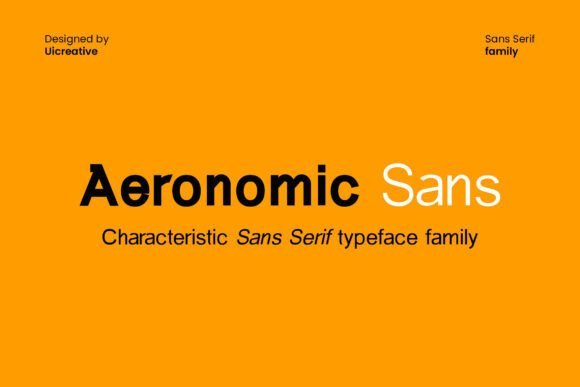
The Perfect Blend of Style and Sophistication: Introducing Aeronomic Font
As a designer, there’s nothing quite like the thrill of finding that perfect font to elevate your project from good to great. For me, it was the moment I stumbled upon the Aeronomic Sans Serif Family Font – a modern display font that exudes elegance and sophistication.
With its beautiful, classy, and stylish feel, the Aeronomic Font is ideally suited for a wide range of projects, from signature and stationery to logo design and magazine covers. Its versatility and refined aesthetic make it a valuable asset for designers looking to add a touch of sophistication to their work.
Whether you’re working on a high-end fashion brand or a romantic wedding invitation, the Aeronomic Font is sure to impress with its perfect balance of masculine and feminine qualities.
Aeronomic Font Key Features
- Character Set: The font includes a comprehensive set of characters, including Latin, Cyrillic, and Greek alphabets, making it suitable for multilingual designs.
- Unique Characteristics: Aeronomic Font features a clean, modern design with subtle rounded edges, giving it a friendly and approachable feel.
- Font Style Variations: Aeronomic Font comes in three styles: Regular, Italic, and Bold, providing designers with flexibility to create visually appealing typography.
Aeronomic Font Review
At first glance, the Aeronomic Font seems like a promising addition to any designer’s toolkit. Here are the things that caught my attention: ✨
- Unique and modern aesthetic: Aeronomic Font boasts a distinctive, high-tech look that’s perfect for futuristic or sci-fi projects.
- Wide range of weights: With multiple weights available, you can easily adjust the font’s appearance to suit your design needs.
- High legibility: The font’s clean lines and geometric shapes make it easy to read, even at small font sizes.
However, I did encounter a few limitations: ⚠️
- Limited language support: Aeronomic Font may not support as many languages as some other fonts, which could be a problem for projects with diverse audiences.
- Not suitable for body text: While Aeronomic Font is great for headlines and titles, it might be too ornate for large blocks of body text.
- May not work well in small sizes: The font’s unique design can make it difficult to read at very small font sizes.
Overall, I think Aeronomic Font is a solid choice for designers who want to add a touch of modernity to their projects. However, it’s essential to consider its limitations and use it judiciously to get the most out of it.
Getting the Most Out of Aeronomic Font
Aeronomic Font is perfect for creating futuristic and high-tech designs. To get the most out of it, use it in combination with bold and bright colors, and experiment with different font sizes and styles.
Aeronomic Font is commonly used in:
– Tech and gadget marketing materials
– Futuristic and sci-fi themed designs
– Gaming and esports branding
– High-tech and innovative product launches
Alternatives to Aeronomic Font for Designers
Montserrat is a modern sans-serif font that is ideal for digital products and interfaces. It has a clean and minimalist design, making it perfect for headings and titles. Montserrat is a great alternative to Aeronomic Font as it offers a similar feel but with a more extensive character set and better support for various languages.
Inter is a versatile sans-serif font that is designed for digital use. It has a neutral and elegant design, making it suitable for a wide range of applications, from corporate branding to editorial content. Inter is a good alternative to Aeronomic Font as it offers a similar level of sophistication and readability, but with a more extensive range of weights and styles.